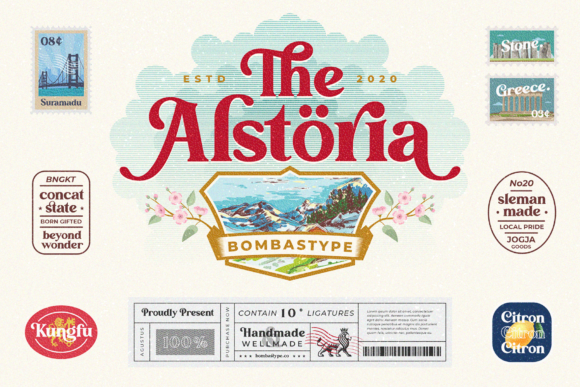
Welcome to the enchanting world of The Alstoria Font, a captivating display font that will ignite your passion for hand lettering. Crafted with meticulous attention to detail by the talented team at Bombastype, this font is a stunning fusion of boldness and beauty.
Step into a realm of boundless creativity with The Alstoria Font, where your ideas take center stage. Its distinctive letterforms dance across the page, exuding a captivating allure that will leave your audience breathless. Each stroke, each curve, each angle is a testament to the artistry and dedication that went into creating this masterpiece.
With The Alstoria Font, you hold the power to transform your designs into breathtaking works of art. Its versatility knows no bounds, making it the perfect choice for a wide range of projects. Whether you're crafting logos that demand attention, creating eye-catching social media posts, designing elegant invitations, or crafting personalized greeting cards, The Alstoria Font will elevate your creations to new heights.
Unleash your imagination and let The Alstoria Font guide you on an artistic journey like no other. Its bold strokes and alluring curves will inject a sense of sophistication and charm into your designs. Prepare to captivate your audience with every letter, every word, every message you create.
The Alstoria Font is more than just a font; it's an invitation to explore the depths of your creativity. It's a tool that empowers you to turn your artistic visions into tangible realities. With The Alstoria Font by your side, you'll discover a new level of design excellence that will leave your audience in awe.